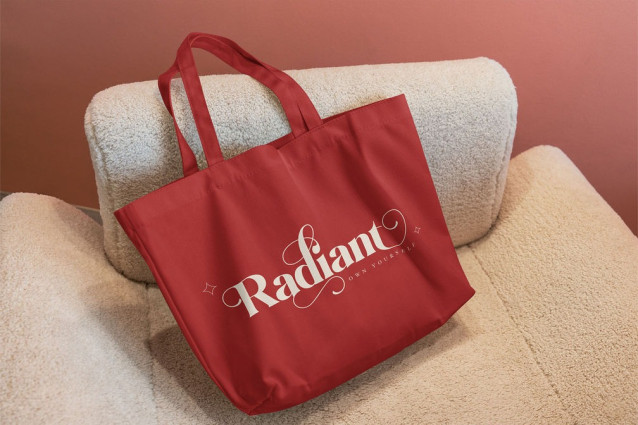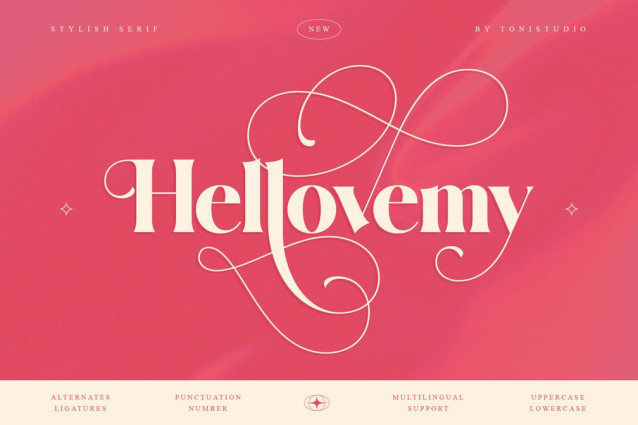
Hellovemy Font is an elegant and stylish serif font crafted to bring sophistication and beauty to your design projects. Featuring graceful alternates and ligatures, this typeface offers endless creative possibilities for creating timeless and luxurious typography.
With uppercase and lowercase letters, complete punctuation, numbers, and multilingual support, Hellovemy is perfect for both print and digital designs. Whether you are working on branding, wedding invitations, editorial layouts, packaging, or social media content, this serif typeface delivers a classy and refined aesthetic.